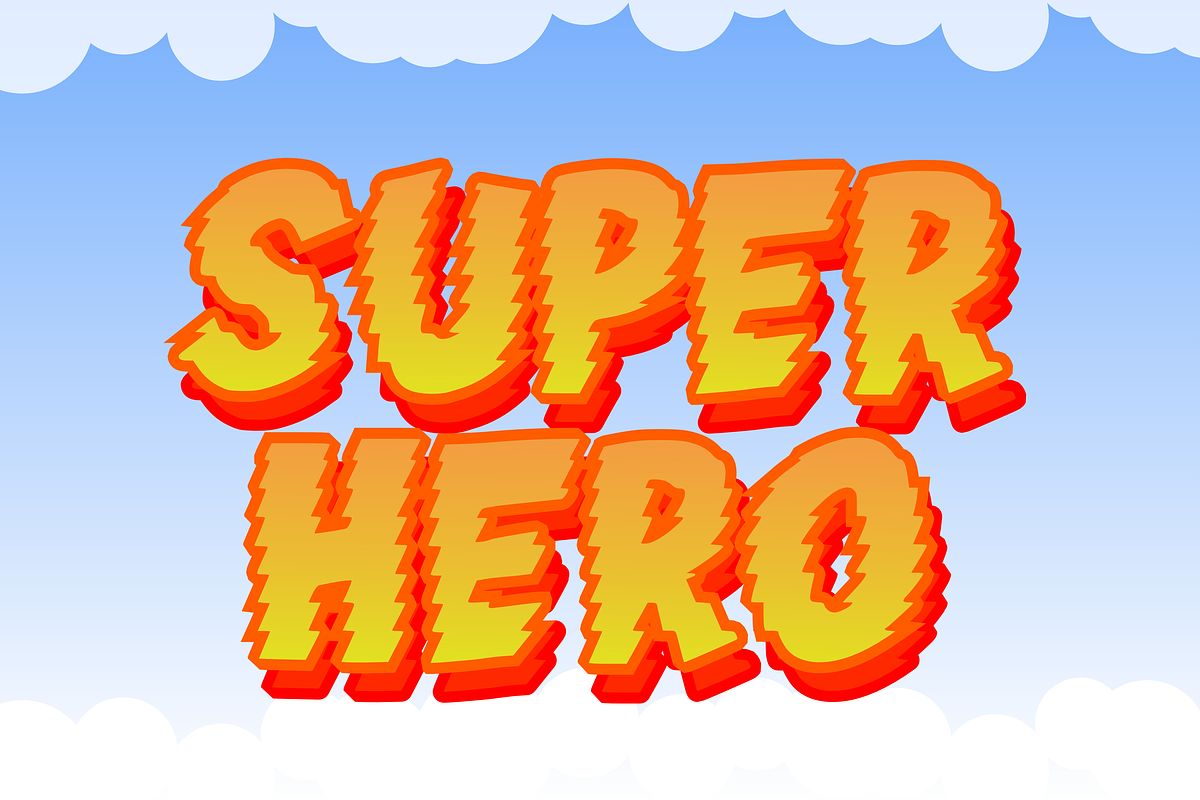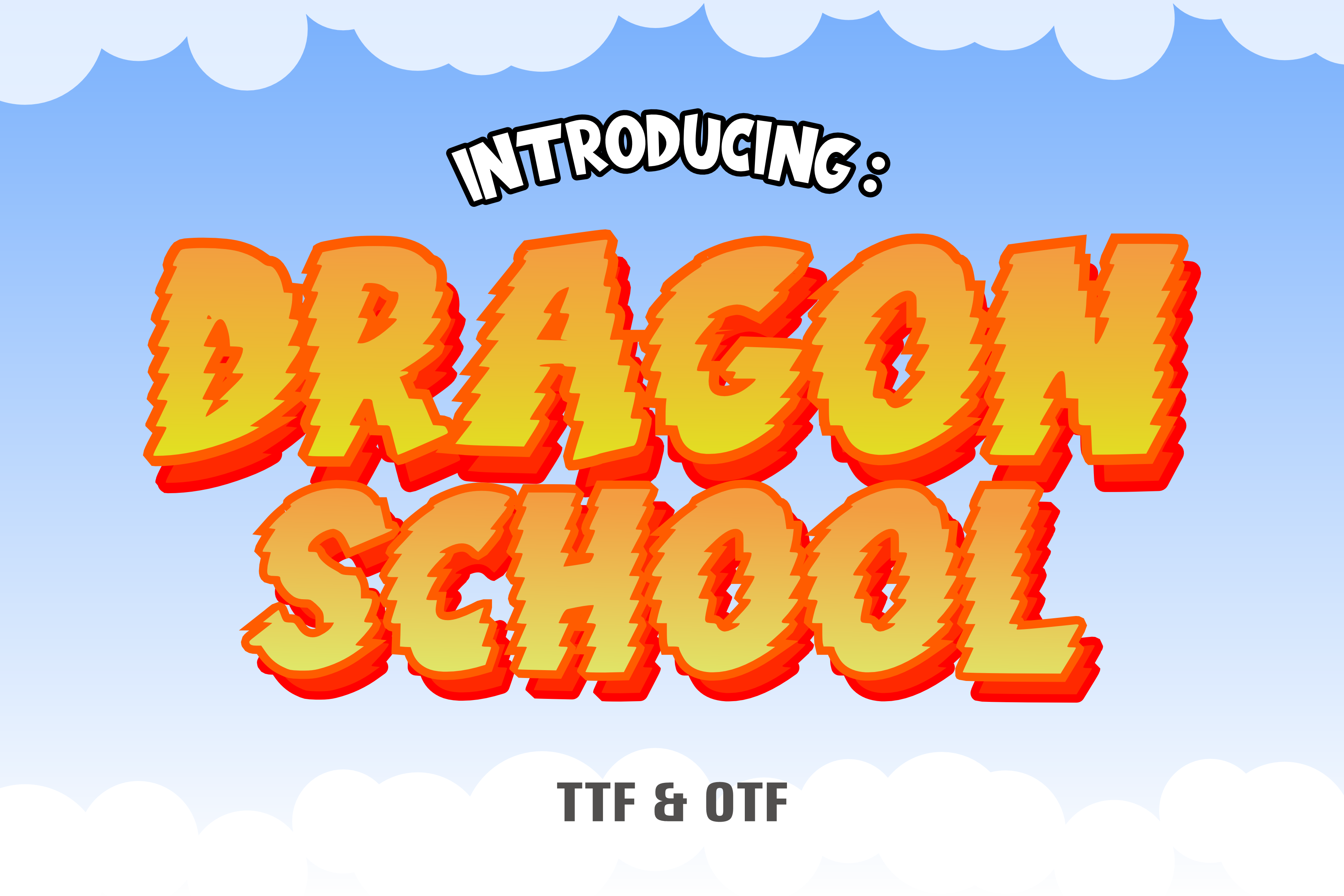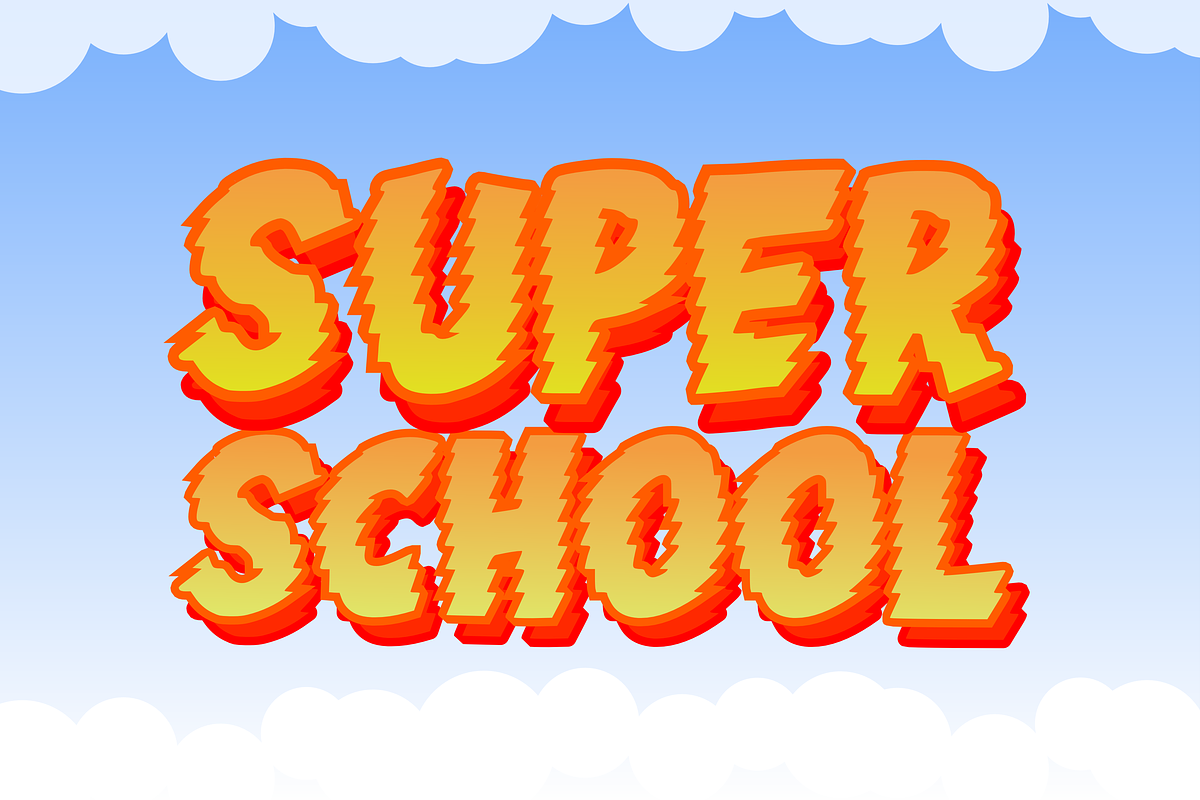
Dragon School - Kids Font Types
Unveiling Dragon School, a charismatic font gently caressed with boldness. Its versatile charm elevates the ambience of diverse children’s products, extending an irresistible appeal that kids and adults alike find hard to resist. Excellent for embellishing children’s birthday festivity materials, putting an exciting touch to comic strips and magazines, crafting standout artwork, amplifying the allure of your social media content, or lending a whimsical appeal to your creative advertising endeavors. Dragon School font is an essential tool that brings a world of wonder to every creation.